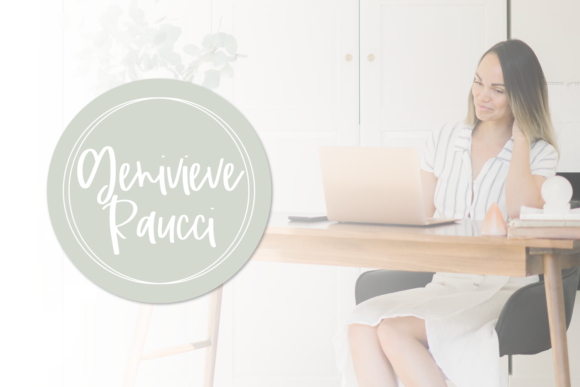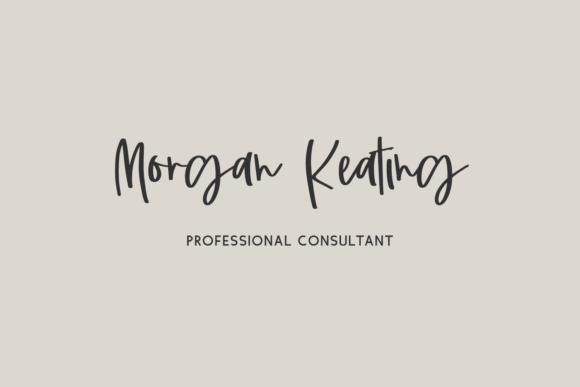
Persnickety Script Font
db-ku.com - Script & Handwritten -- Persnickety Script is a sweet and friendly handwritten font. Its natural and unique style makes it incredibly fitting to a large pool of designs. The only limit is your imagination!